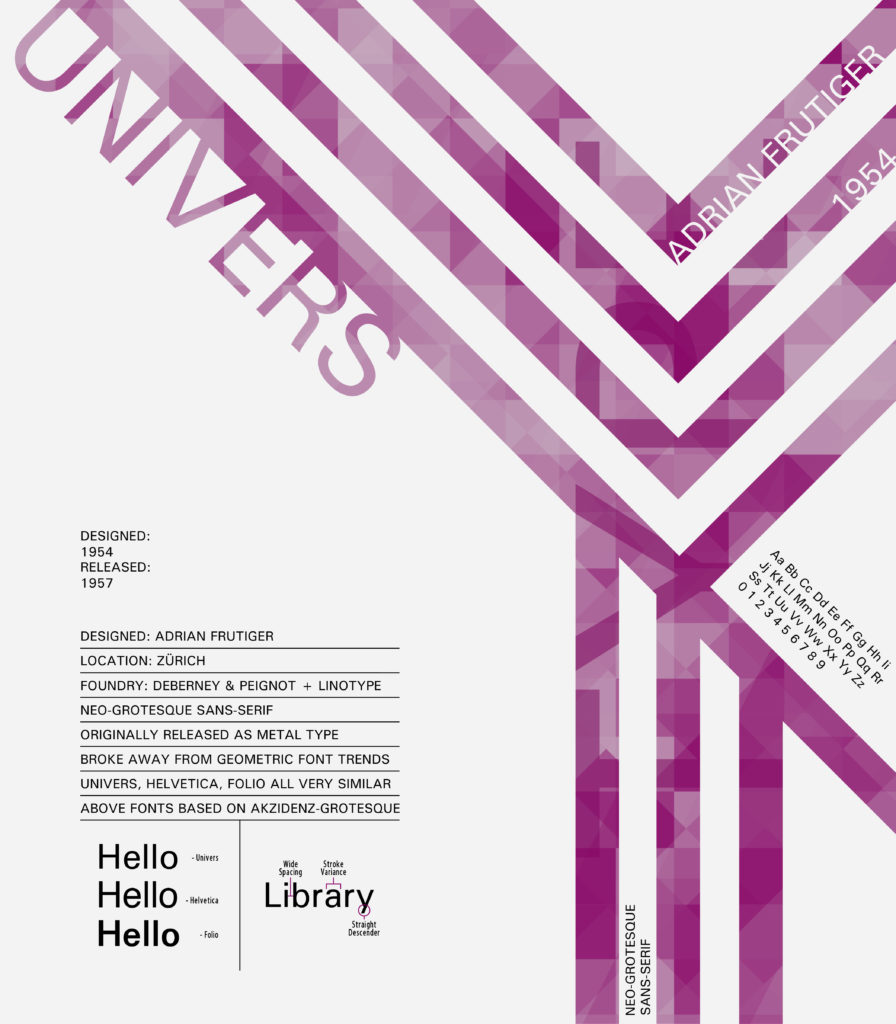
Font of the Week — Univers
Univers was created by Adrian Frutiger in 1954 as a neo-grotesque sans-serif. Does Univers look familiar? It was part of a move to break away from super popular geometric font trends. Univers, Helvetica, and Folio all share similar nuances as a result of this breakaway. Each of these fonts borrows from the 1898 type face Akzidenz-Grotesk, which is a big reason the three are often mistaken for one another.